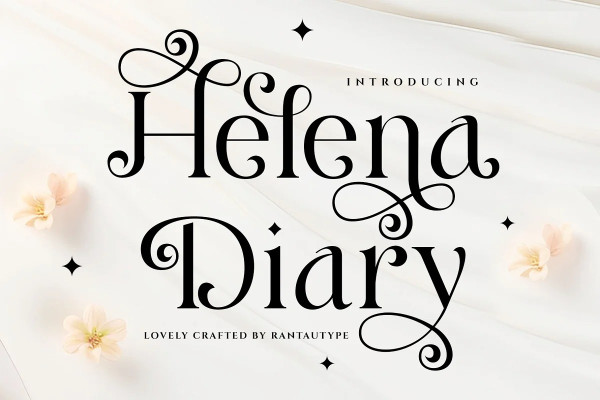
Helena Diary Font
Helena Diary Font is a classic, feminine, display serif font that embraces elegance and grace. Its delicate curves and refined details create a sense of sophistication and femininity wrapped with a beautiful Alternate stylist. Helena Diary brings a touch of charm and sophistication to branding, editorial designs, and more. We keep this font looks fashionable, elegant, luxury, premium, modern, catchy and easy to use. With its versatility and contemporary appeal.
HelenaDiary – separate in reguler and italic, is a beautiful choice for any creative endeavor, creating elegant, modern, chic, lifestyle design such as logos, title, cover, branding, invitations, wedding designs, display and magazine, social media posts, advertisements, printed quotes, product packaging, product designs, labels, photography, watermarks, special events and more. Now you can using Helena Diary to make a stunning design.